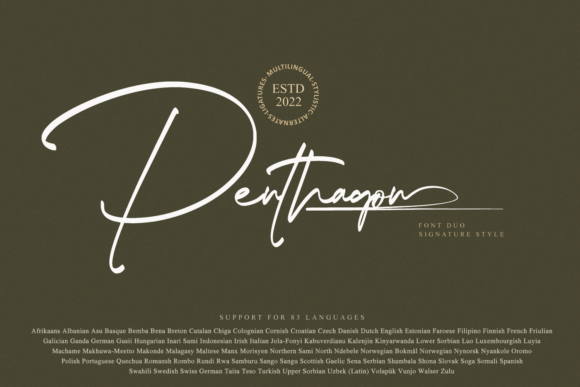
Welcome to the world of Penthagon Font, a script font family that embodies grace and sophistication like no other. Crafted meticulously by Gie Studio, Penthagon is a delicate and thin-lettered font that adds a touch of elegance and class to your creative projects.
With its PUA encoding, Penthagon offers seamless access to a world of glyphs and swashes, unlocking endless possibilities for customization and personalization. Whether you're a designer, marketer, or simply a lover of beautiful typography, Penthagon is the key to unlocking your creative potential.
Step into the realm of refined aesthetics with Penthagon, where every letter dances across the page with poise and charm. Its flowing lines and graceful curves evoke a sense of timeless elegance, making it perfect for crafting logos, branding materials, invitations, greeting cards, and any project that demands a touch of sophistication.
Penthagon's versatility knows no bounds. Its delicate nature lends itself beautifully to feminine designs, while its understated confidence shines through in minimalistic projects. Whether you're creating a wedding invitation, a fashion catalog, or a sleek business presentation, Penthagon will elevate your designs to new heights of sophistication.
For those seeking a font that exudes individuality and personal flair, Penthagon is the ultimate choice. Its script style is reminiscent of handwritten signatures, adding a touch of authenticity and warmth to your creations. Imagine your logo adorned with the unique charm of Penthagon, leaving a lasting impression on your audience.
Embrace the allure of Penthagon today and embark on a creative journey like never before. Let its delicate strokes and graceful curves captivate your audience, leaving them breathless with admiration. Penthagon is more than just a font; it's an artistic expression that transforms your designs into breathtaking masterpieces.